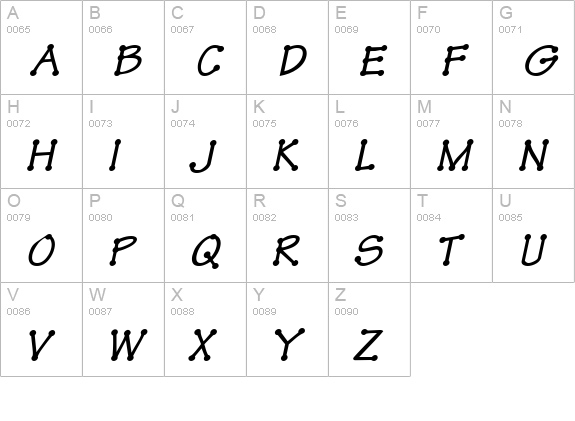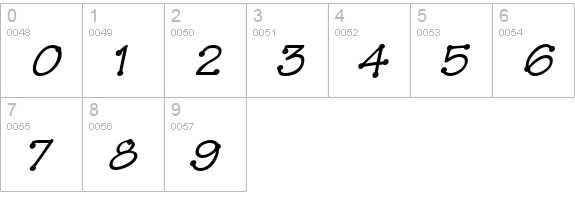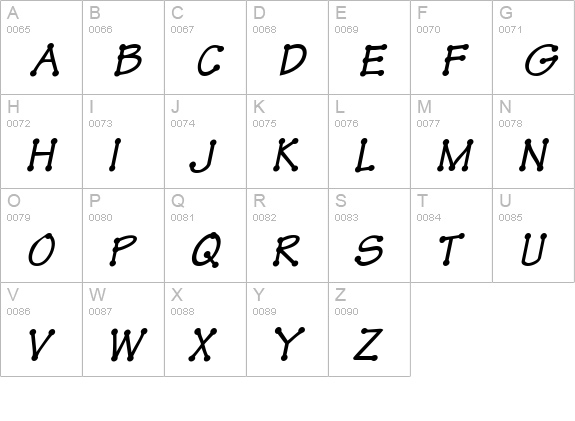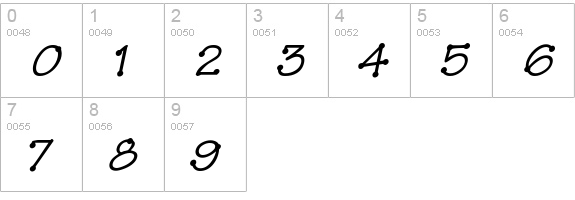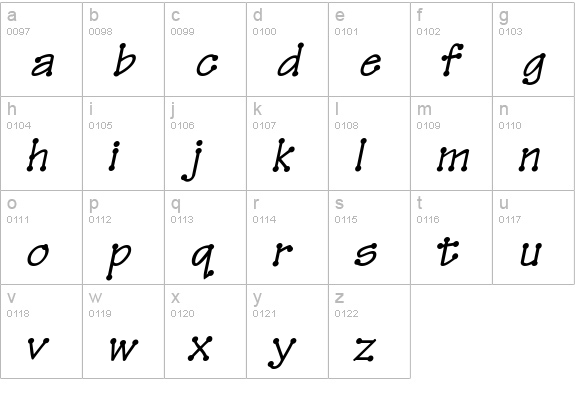
TinkerToy HeavyOblique Font Details
TinkerToy HeavyOblique is a visually striking and bold font that exudes a strong and commanding presence. With its heavy weight and oblique slant, this typeface adds a unique and distinctive touch to any design project. The sharp angles and robust letterforms of TinkerToy HeavyOblique make it perfect for headlines, titles, and attention-grabbing text. Whether it's for a poster, logo, or branding materials, this font will effortlessly make a statement and captivate the viewer's attention. What sets TinkerToy HeavyOblique apart is not only its impressive design but also its accessibility. This font is freely available to download at FontsMarket.com, making it easily accessible to designers and creatives alike. With TinkerToy HeavyOblique, you can unleash your creativity without any restrictions. Its versatility allows it to be used across a wide range of projects, from print to digital, ensuring that your message is delivered with impact and style. So, if you're looking for a font that combines strength, elegance, and a touch of playfulness, TinkerToy HeavyOblique is the perfect choice. Download it for free at FontsMarket.com and add a touch of visual excitement to your designs today.